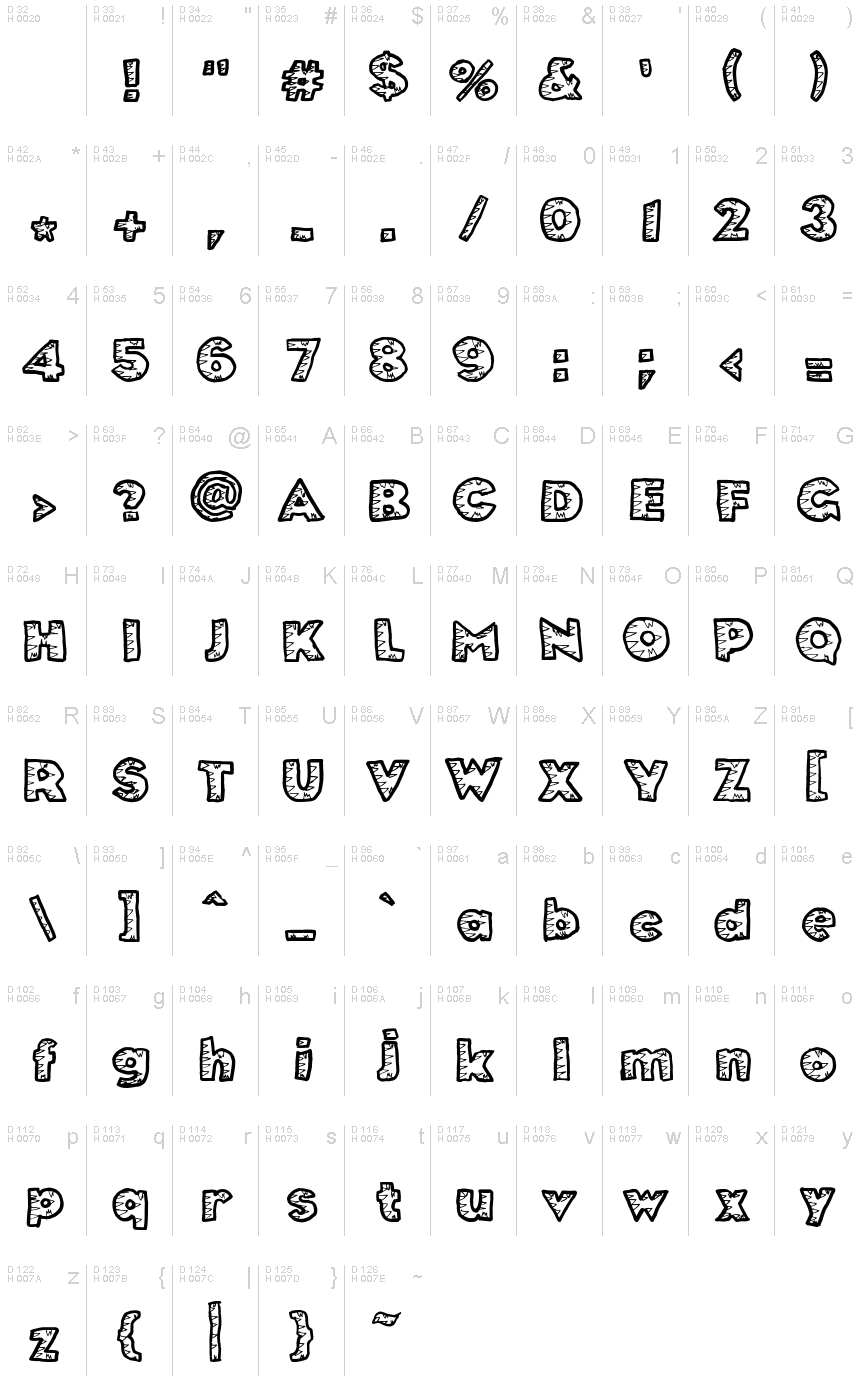
MuchoFiesta
The Mucho Fiesta font by Max Infeld of Xerographer Fonts is a bold, dynamic display typeface that exudes a captivating sense of fiesta-inspired energy. With its playful, hand-drawn aesthetic and striking letterforms, this font radiates a vibrant, festive atmosphere. The unique brush-like strokes and organic curves lend the design a lively, informal charm, while the bold weight ensures a commanding presence. Mucho Fiesta's distinct personality makes it a versatile choice for a wide range of design applications.
This typeface's dynamic qualities and eye-catching flair make it an excellent selection for headlines, logos, event branding, and other attention-grabbing design elements. Mucho Fiesta's bold, expressive style lends itself particularly well to applications that seek to evoke a festive, celebratory mood, such as party invitations, festival promotions, and energetic marketing materials.